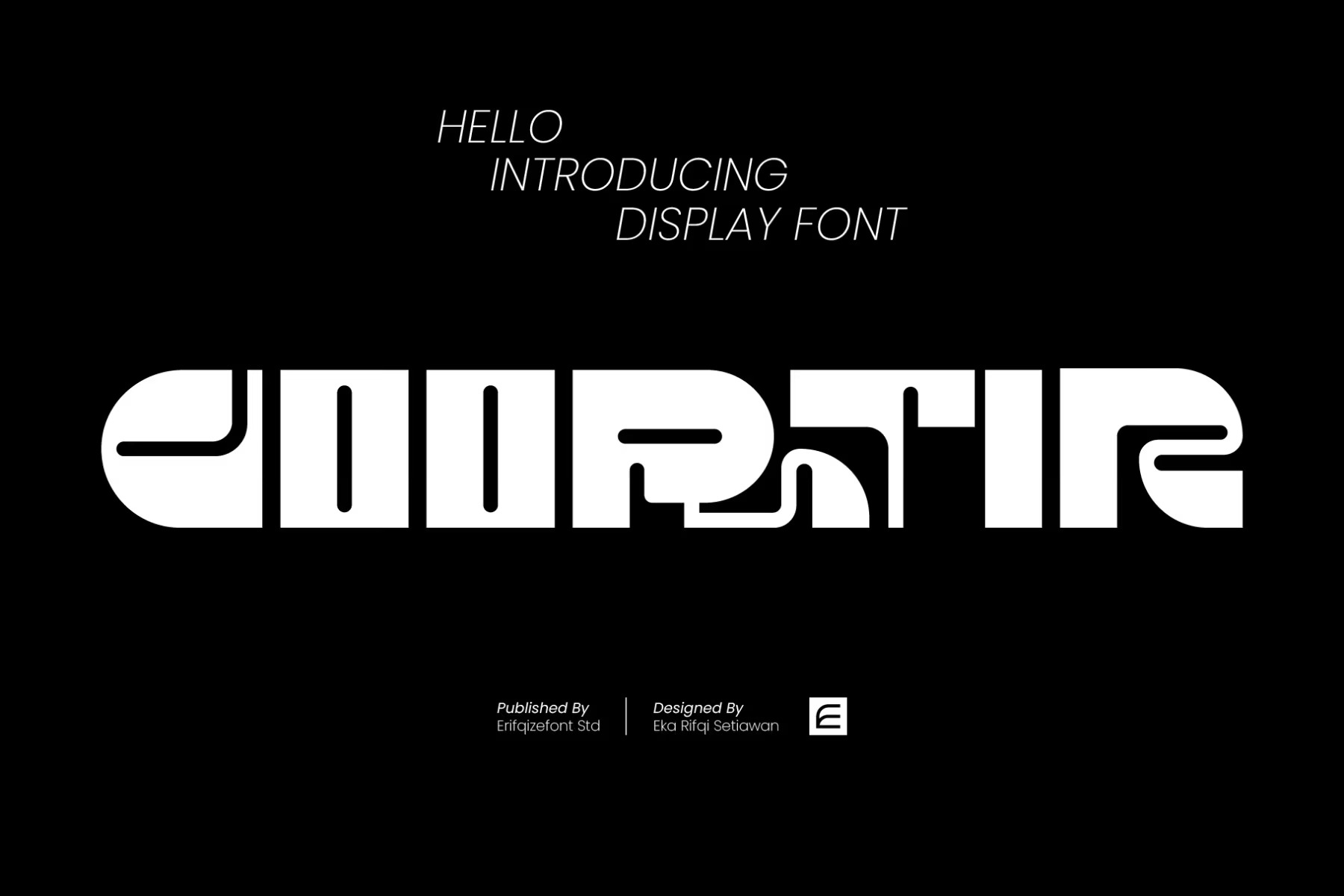
Goortir – Bold Techno Diplay Font
Goortir – Bold Techno Diplay Font brings a balanced structure and contemporary look, making it suitable for both digital and print design. Goortir is a bold futuristic display font built with modular construction and ultra-geometric letterforms. Its solid shapes, wide proportions, and smooth futuristic curves create a strong visual identity that instantly stands out. Goortir blends modern minimalism with experimental typography, resulting in a font that feels innovative, stylish, and highly expressive.
Perfect for large-size usage, Goortir is ideal for logos, headlines, posters, branding, sci-fi themes, esport graphics, album covers, editorial layouts, and creative experimental projects. Its unique shapes bring a bold statement and a fresh futuristic personality to any design.